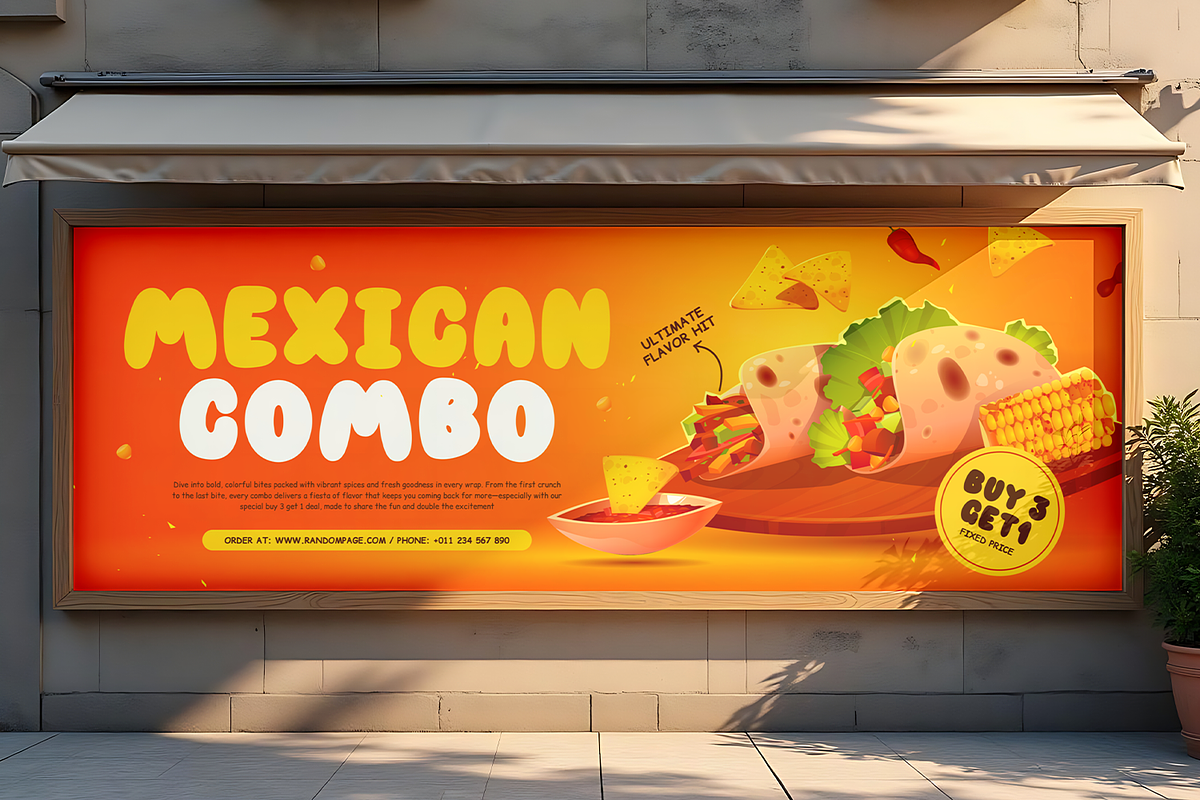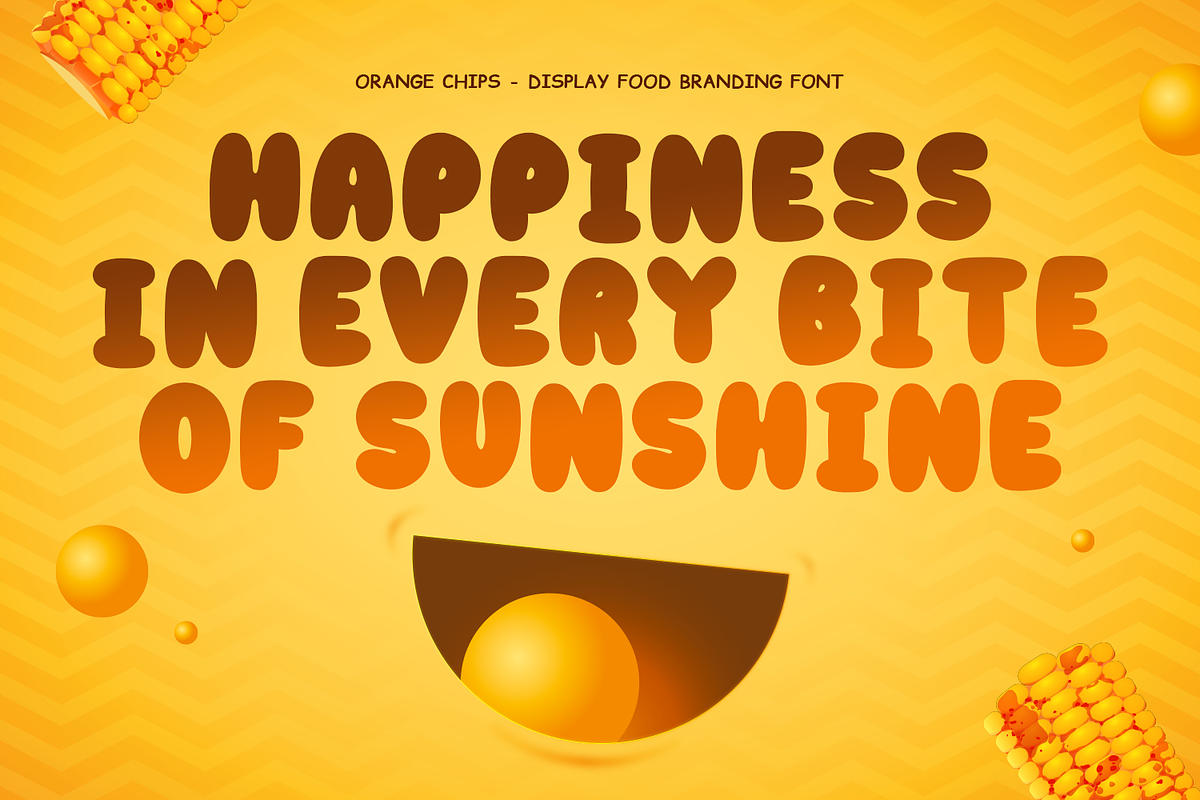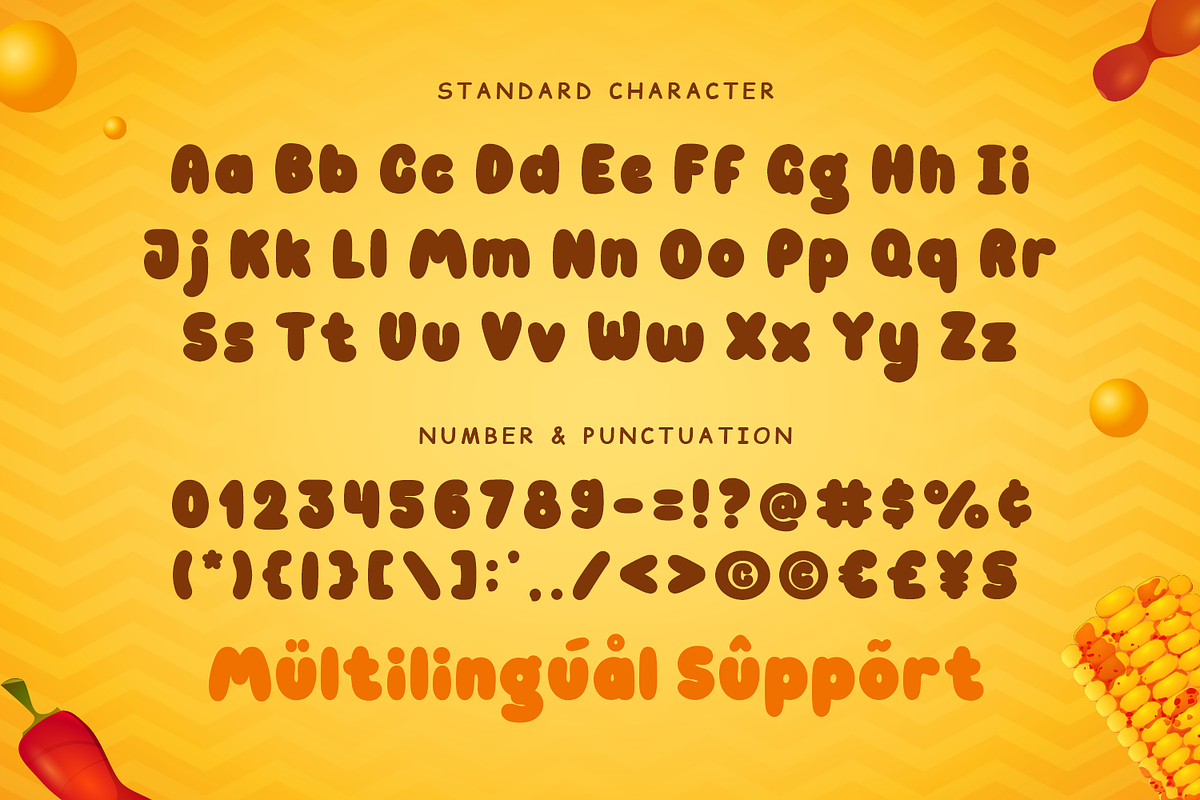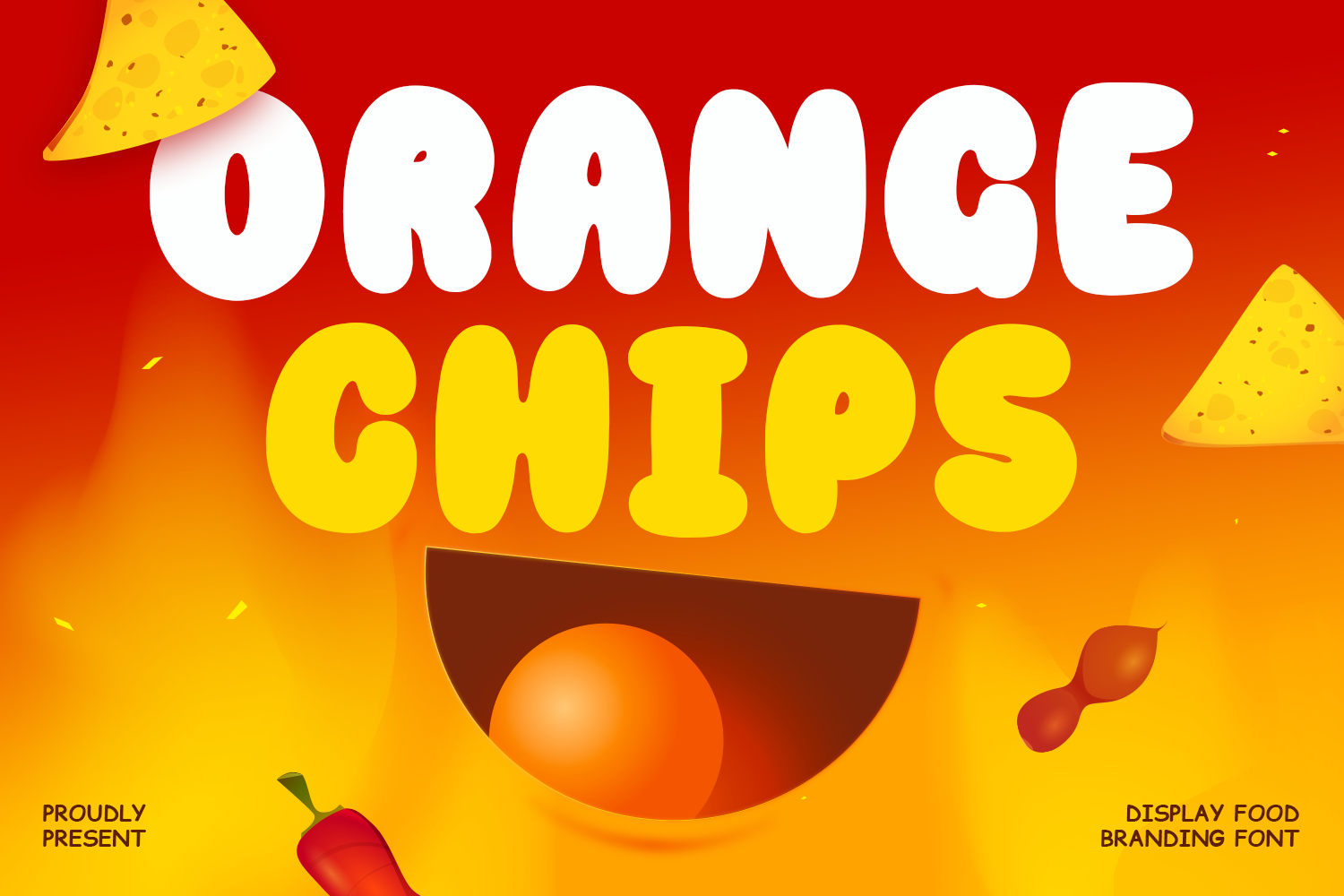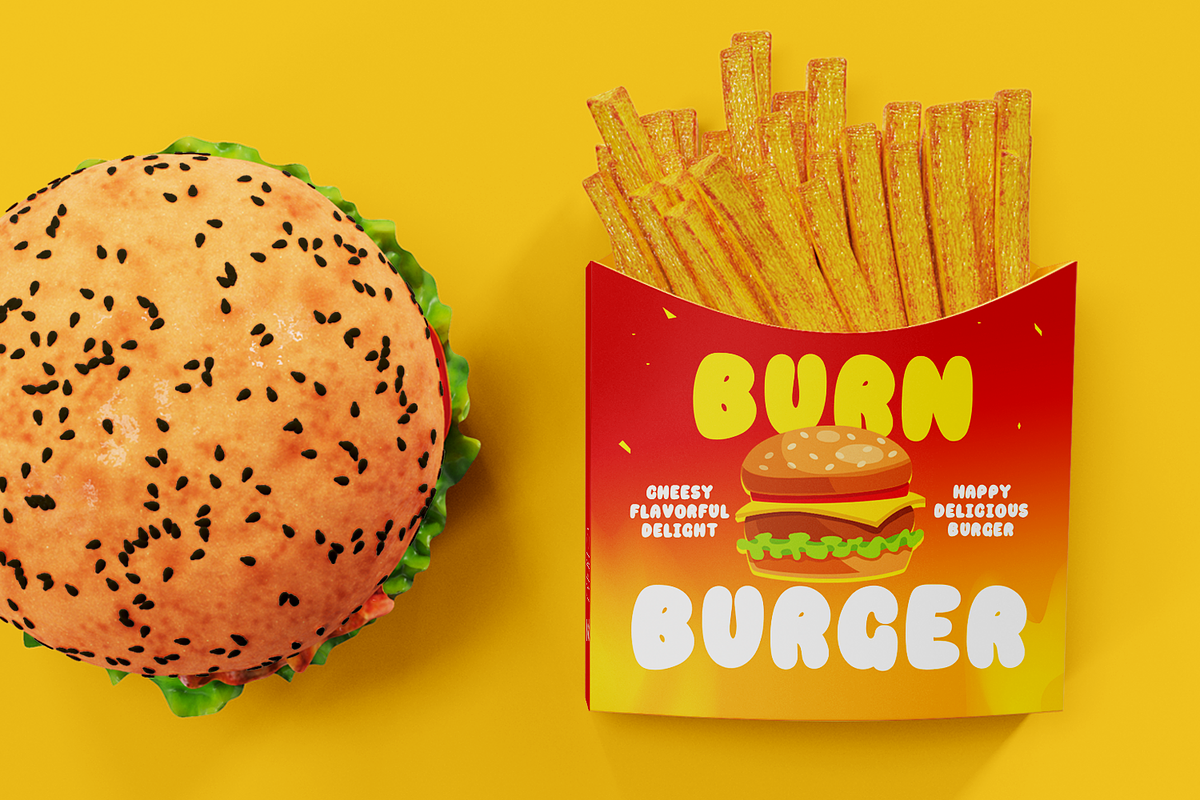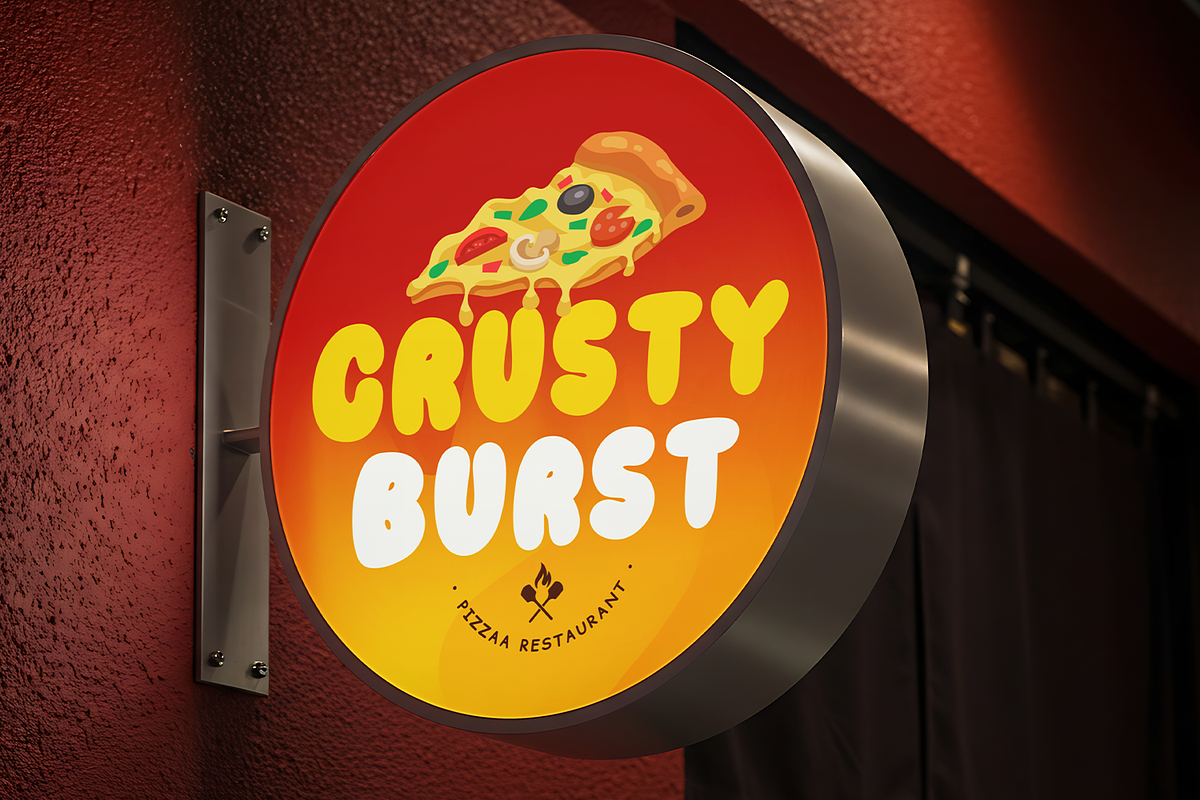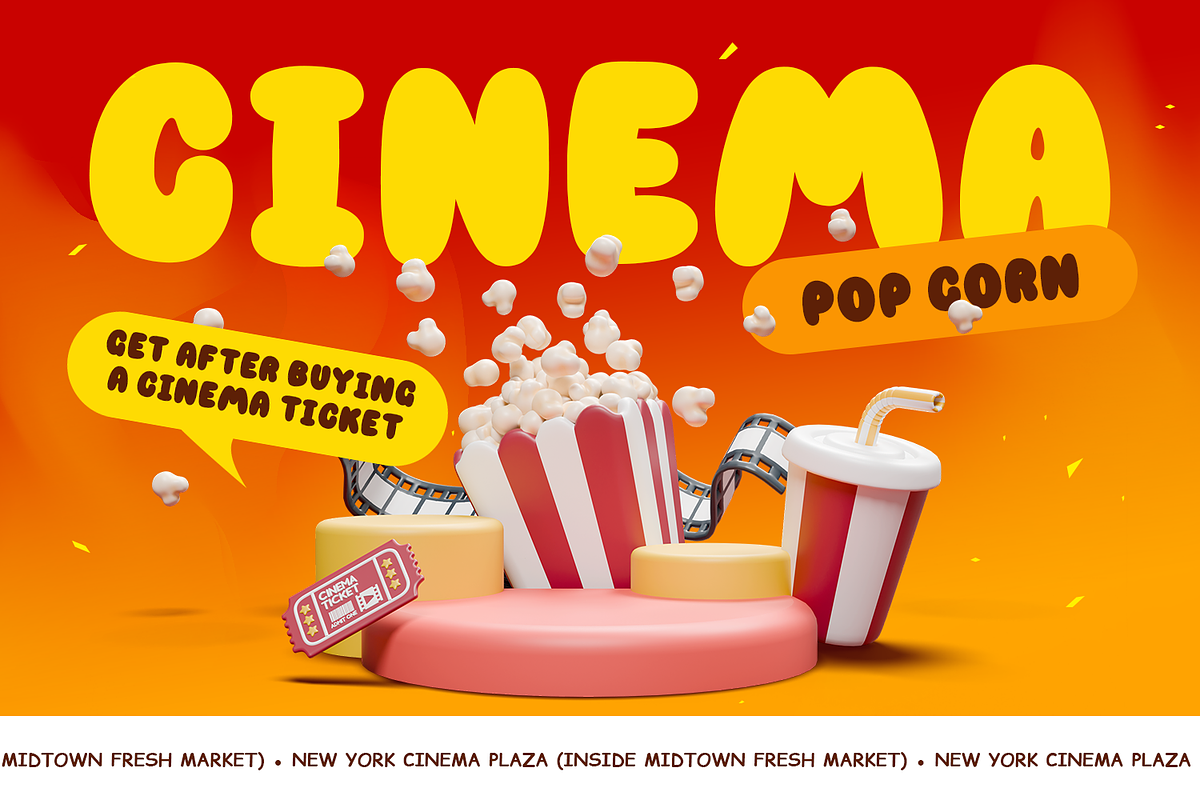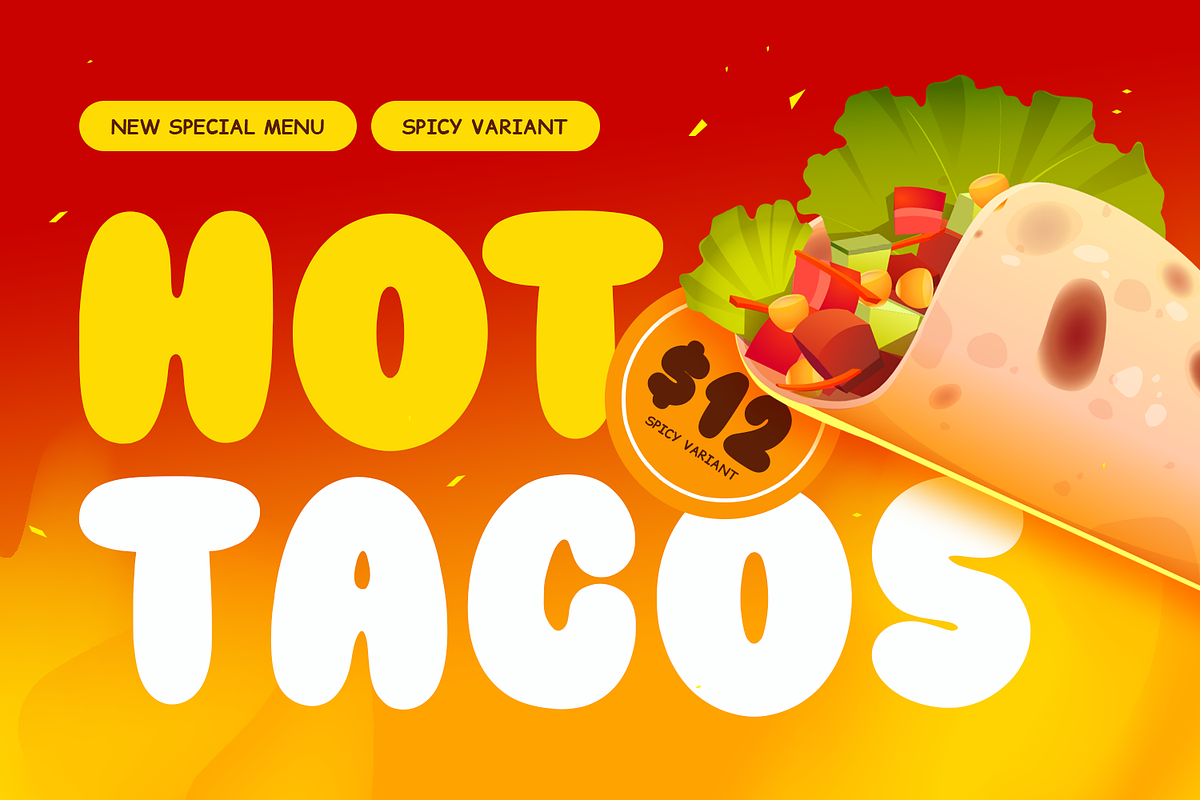
ORANGE CHIPS - Food Font
Orange Chips – Crunchy Food Font
Orange Chips is a playful and delicious food font created to bring fun, freshness, and crispy vibes into your creative designs. Inspired by crunchy snacks and tasty fast-food aesthetics, this font delivers a bold and cheerful personality that instantly makes every project feel more exciting and appetizing.
Designed with smooth curves and lively letterforms, Orange Chips combines a modern playful style with excellent readability. Its friendly and energetic appearance creates a warm and joyful atmosphere, making it perfect for food branding, snack packaging, restaurant promotions, and colorful creative projects.
This font is ideal for food-related designs such as chips packaging, burger shops, cafés, street food branding, beverage labels, menus, bakery products, and social media promotions. The fun typography style helps products look more eye-catching, delicious, and memorable.
Orange Chips works beautifully for logos, posters, stickers, mugs, t-shirts, packaging, banners, and promotional graphics. Its crunchy and vibrant personality adds charm and excitement, helping your designs stand out with a fresh and modern food-inspired look.
The font is also excellent for crafting and DIY projects including Cricut designs, SVG files, handmade stickers, party decorations, and custom merchandise. Whether used for digital or print media, Orange Chips brings a cheerful and flavorful touch to every creation.
Fun Food Style
Playful letterforms inspired by crispy snacks and delicious treats.
Bold & Eye-Catching
Designed to create energetic and attention-grabbing designs.
Friendly & Readable
Easy to read while maintaining a cute and lively personality.
Versatile Food Font
Perfect for branding, menus, packaging, and promotional materials.
Craft-Friendly Design
Ideal for Cricut, SVG files, DIY crafts, and handmade products.
Includes extended multilingual characters for wider creative use.
• Snack & Food Packaging
• Café & Restaurant Branding
• Fast Food Promotions
• Menus & Posters
• Beverage & Bakery Designs
• Social Media Graphics
• Stickers & Merchandise
• DIY Crafts & Cricut Projects
• Kids & Fun Creative Designs
If you are looking for a font that combines playful charm, crunchy snack vibes, and modern food-inspired style, Orange Chips is the perfect choice. This font helps you create designs that feel fresh, tasty, and full of personality.